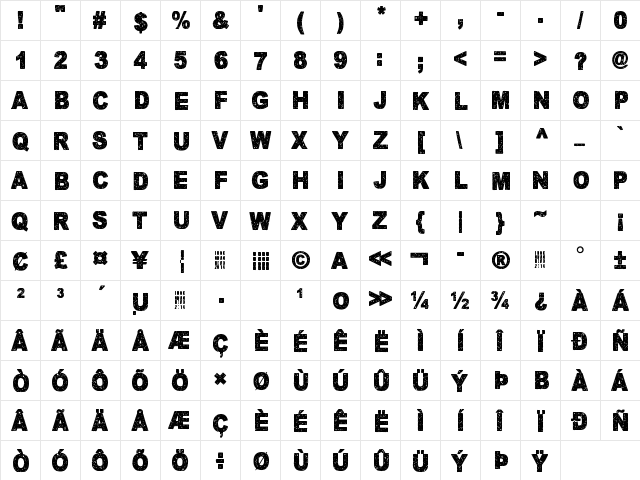
Keskiyon Lumisade Regular
Design Context for Keskiyon Lumisade Typeface
Keskiyon Lumisade is a composed and adaptable typeface that performs quietly and consistently across a wide range of design contexts.
Pro Tip: Use Keskiyon Lumisade in both headline and body roles to test its range before committing to a single application.